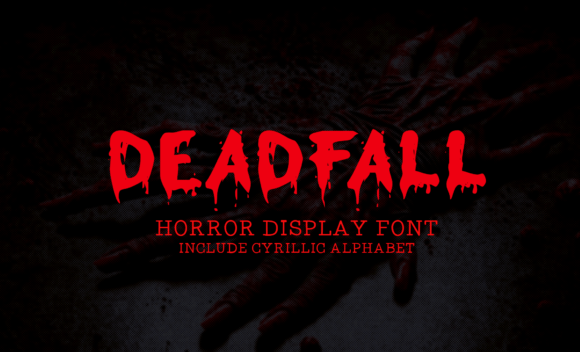
Step into the realm of the macabre with Deadfall Font, the ultimate display font that will send shivers down your spine. Experience the thrill of creating spine-chilling posters, bone-rattling marketing materials, and haunting movie titles that will leave your audience trembling in anticipation.
With Deadfall, crafting chilling designs becomes an effortless endeavor. Its meticulously crafted characters exude an eerie elegance, perfectly capturing the essence of horror and dread. Embrace the darkness and let your imagination run wild as you craft designs that evoke goosebumps and leave an unforgettable mark.
Transport yourself to a world of shadows and whispers, where Deadfall reigns supreme. Its sharp lines and jagged edges evoke a sense of impending doom, while its swirling glyphs hint at secrets best left undisturbed. Allow Deadfall to be your guide through this sinister realm, as you weave tales of terror and create visuals that will linger in the minds of your audience long after they've turned the page.
Unleash the power of Deadfall and immerse yourself in a symphony of darkness. Its versatile nature makes it the perfect companion for chilling movie titles, hair-raising death metal logotypes, and spine-tingling Halloween crafts. With Deadfall, the possibilities are endless, as you conjure up designs that dance on the edge of nightmare and reality.
Embrace the darkness, dare to be different, and let Deadfall be your muse as you craft designs that will haunt and mesmerize. Step into the shadows and experience the thrill of Deadfall Font, the ultimate horror display font.